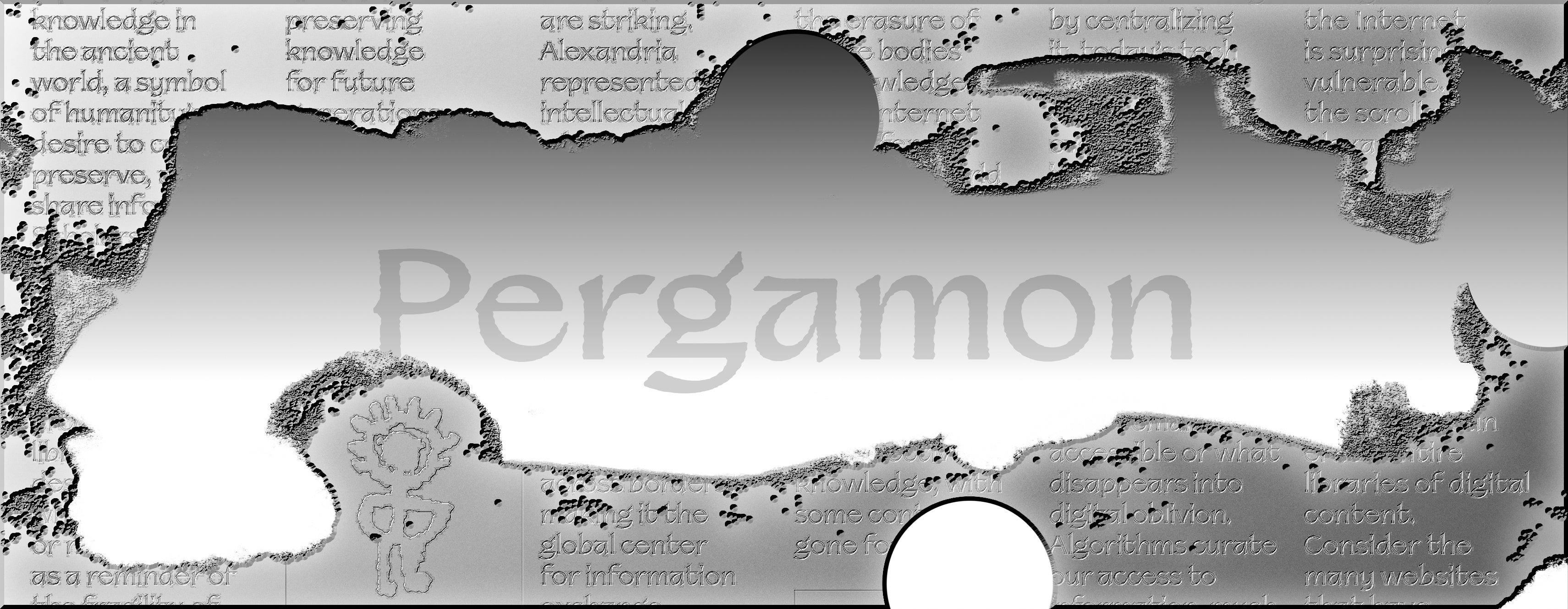
The spiritual heir to one of the most recognizable—and polarizing—digital calligraphic fonts
Pergamon Collection
Meet Pergamon, the spiritual heir to one of the most recognizable—and polarizing—digital calligraphic fonts. Named after the city where parchment, the successor to papyrus, was invented, Pergamon brings the nuances of parchment nib contrast into a structured and versatile typeface, achieving a harmonious balance between the organic flow of gestural strokes and the precision of digital design.
Designed with digital editorial projects in mind, Pergamon stays sharp and legible at any size, ensuring every text block feels refined and readable. Whether in print or on screen, it transforms the endless scroll into a seamless reading experience.
In a nod to its historical roots, Pergamon is also the first typeface on Off Type or Pangram to feature monotonic Greek compatibility. More than just an easter egg, the Greek script integrates naturally into the typeface’s aesthetic, enhancing its connection to its ancient origins.